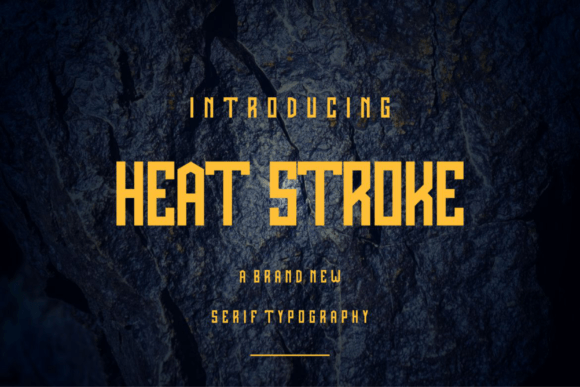
Introducing Heat Stroke Font: A Cool and Unique Display Font
In the world of typography, a good font can make all the difference in the success of a design project. Whether you’re a seasoned designer or a crafty DIY enthusiast, having the right font in your arsenal can elevate your creations from ordinary to extraordinary. That’s where Heat Stroke Font comes in – a cool and unique display font that’s sure to become a valuable asset in your font library.
What is Heat Stroke Font?
Heat Stroke Font is a meticulously crafted display font that’s designed to make a statement. With its highly detailed and neat design, this font is perfect for a wide range of applications, from branding and advertising to packaging and digital media. Its unique style and versatility make it an excellent choice for designers and crafters looking to add a touch of personality to their work.
Key Features of Heat Stroke Font
- Unique and Cool Design: Heat Stroke Font boasts a one-of-a-kind design that’s sure to turn heads. Its sleek lines and carefully crafted details make it a standout in any design.
- Highly Detailed: This font is designed with precision and attention to detail, ensuring that it looks great in any size or application.
- Versatile: Whether you’re working on a branding project, creating a poster, or designing a website, Heat Stroke Font can adapt to any style or theme.
- Easily Readable: Despite its unique design, Heat Stroke Font remains highly legible, making it perfect for use in a variety of contexts.
How to Use Heat Stroke Font
Heat Stroke Font is incredibly versatile and can be used in a multitude of ways. Here are a few ideas to get you started:
- Branding and Logo Design: Use Heat Stroke Font to create a memorable and impactful logo that sets your brand apart.
- Posters and Flyers: Add a touch of personality to your promotional materials with this eye-catching font.
- Digital Media: Use Heat Stroke Font in your social media graphics, website headers, or email newsletters to add a professional and stylish touch.
- Packaging Design: Make your product stand out on store shelves with a unique and attention-grabbing font.
Benefits of Using Heat Stroke Font
By incorporating Heat Stroke Font into your design projects, you can enjoy a range of benefits, including:
- Increased Visual Impact: This font is designed to grab attention and make a lasting impression.
- Improved Brand Recognition: A unique and memorable font can help to establish your brand identity and make it more recognizable.
- Enhanced Creativity: With Heat Stroke Font, you can add a touch of personality and style to your designs, helping you to stand out from the competition.
Heat Stroke Font is a cool and unique display font that’s sure to become a valuable addition to your font library. Its highly detailed design, versatility, and readability make it perfect for a wide range of applications. Whether you’re a designer, crafter, or DIY enthusiast, this font has the potential to enhance any creation and help you achieve your design goals.